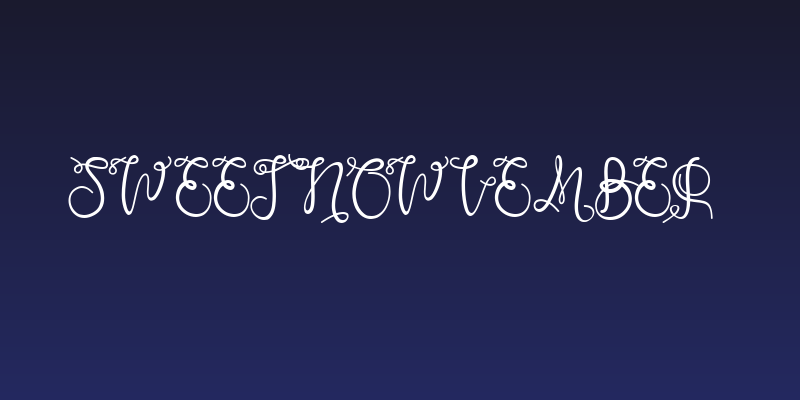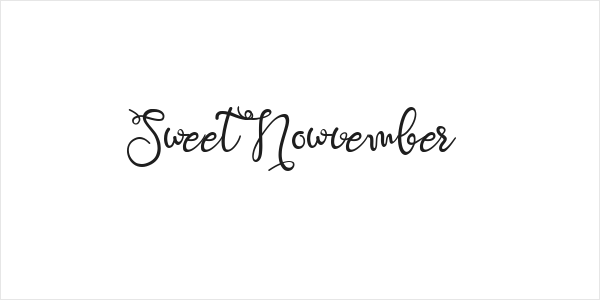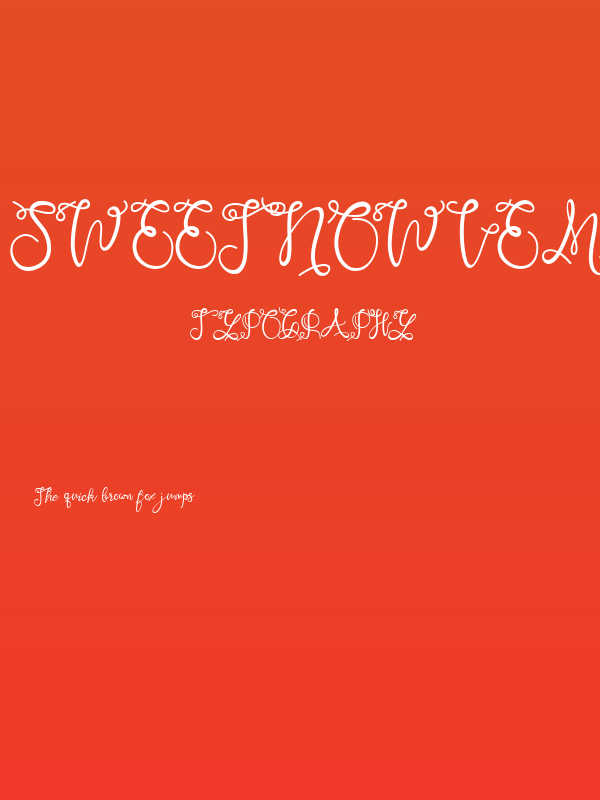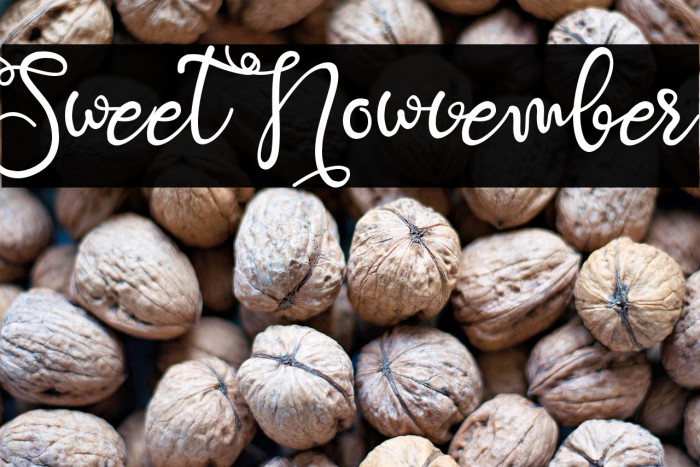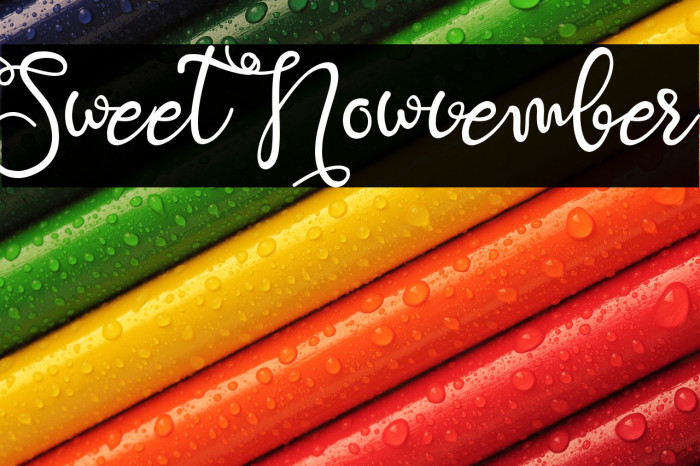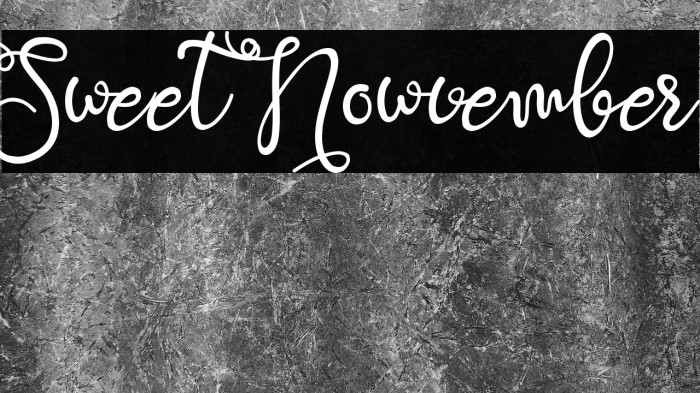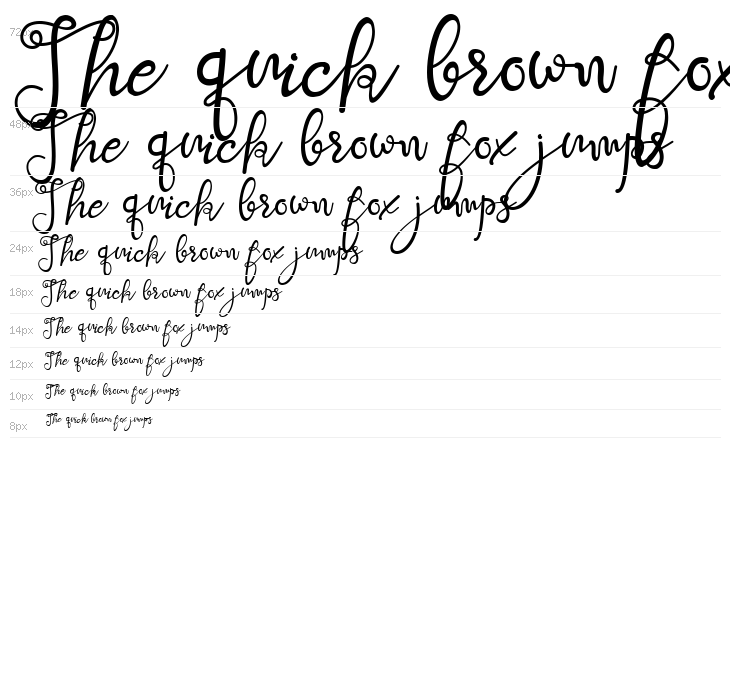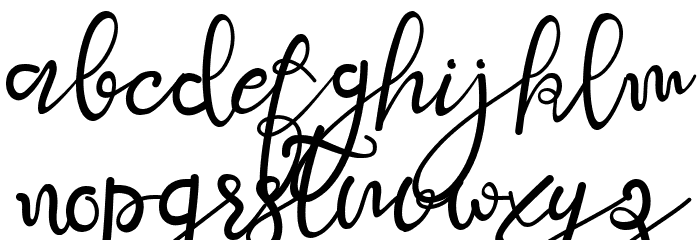
Sweet Nowvember Font
Sweet Nowvember Description
This font features an elegant and whimsical script style with intricate loops and flourishes. The uppercase letters are highly decorative, with each character incorporating unique swirls and curls that give it a playful yet sophisticated appearance. The lowercase letters maintain a more fluid and connected script style, offering a harmonious blend of readability and artistic flair. Numbers and special characters are designed to match the overall aesthetic, ensuring consistency throughout. This font's distinct personality makes it ideal for creative and expressive design projects.
| Proposed Projects | Ideal for wedding invitations, greeting cards, branding, and artistic posters. |